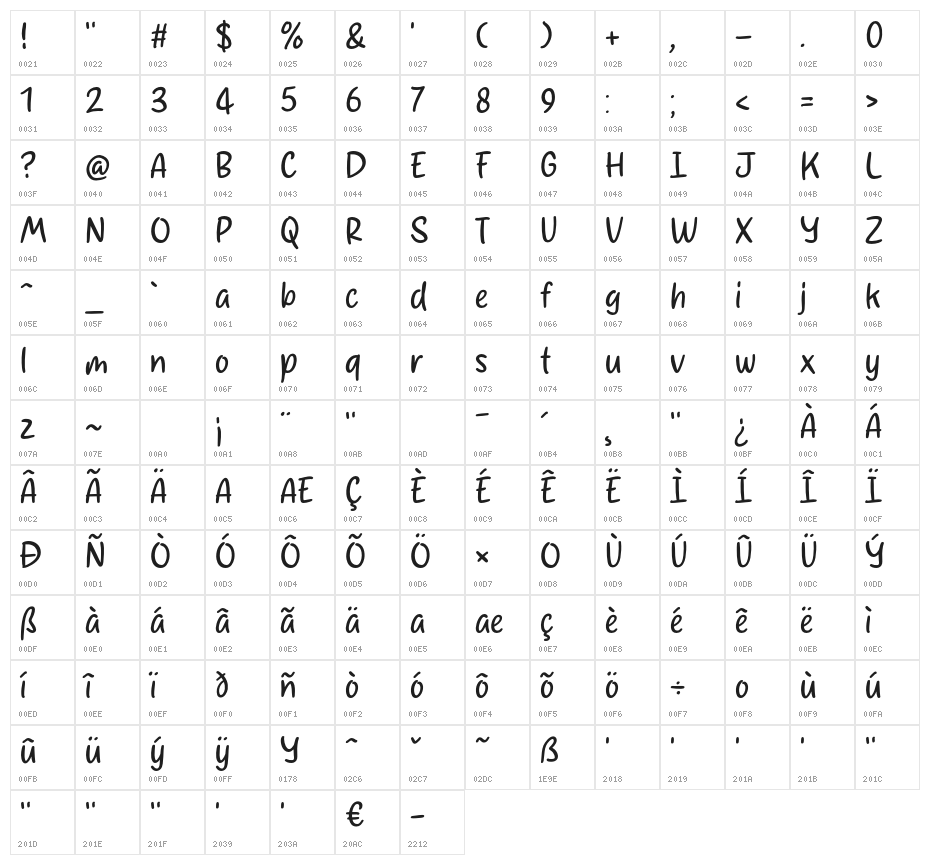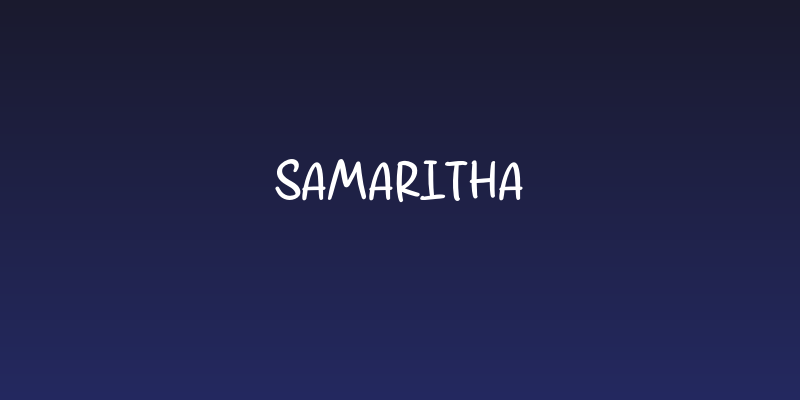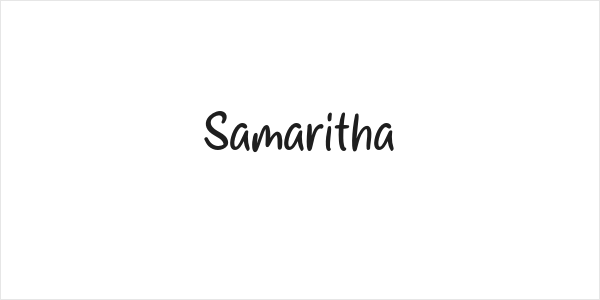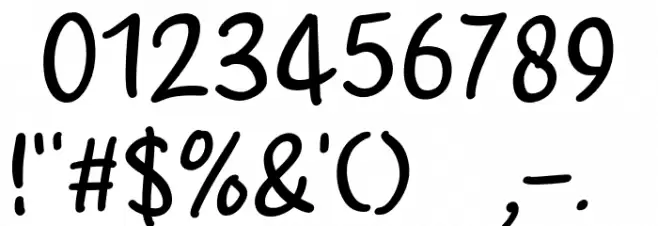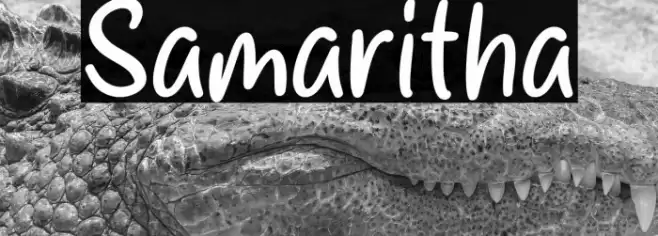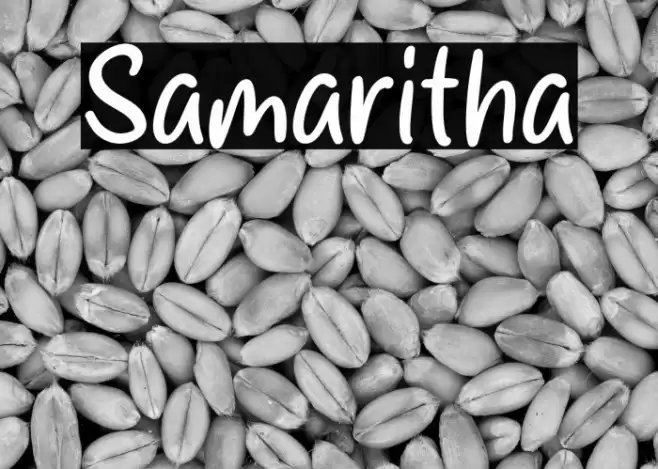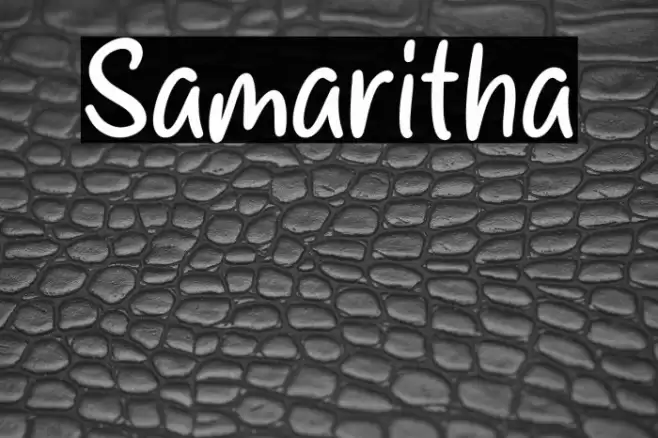
Samaritha Font
Samaritha Description
This font features a playful and casual handwritten style, characterized by smooth curves and a slightly irregular baseline that adds a personal touch. The letters are bold and rounded, giving a friendly and approachable appearance. The uppercase and lowercase letters maintain a consistent style, with the lowercase letters slightly smaller in size. Numbers and special characters follow the same design, ensuring uniformity across all elements. The font's informal nature makes it suitable for creative projects that require a touch of personality and warmth.
| Use Case | Headlines, Informal text, Creative projects |
| Proposed Projects | Ideal for greeting cards, children's books, personal blogs, and informal branding. |